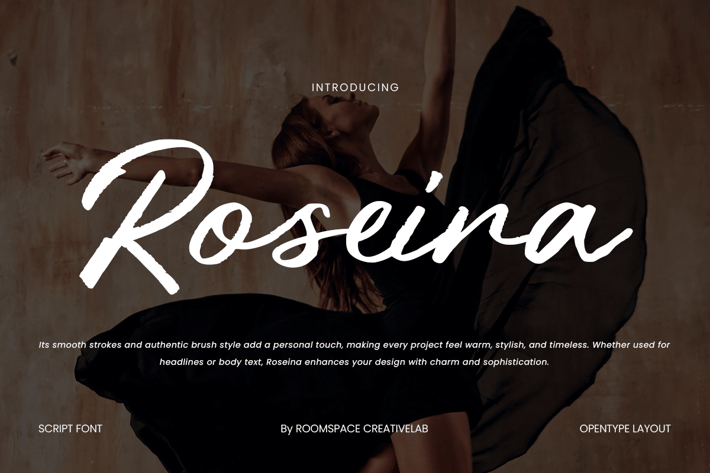
Roseira - Handwritten Brush Font
Roseira is a stylish brush script font with smooth strokes and an authentic handmade feel, designed to add warmth, charm, and sophistication to any project. Its elegant flow, balanced kerning, and versatile Opentype features make it perfect for creating eye-catching designs that feel personal yet professional. Whether used for logos, branding, packaging, social media, invitations, editorials, or wedding designs, Roseira enhances your typography with timeless beauty. Add Roseira to your font collection today and let every word speak with character and style.